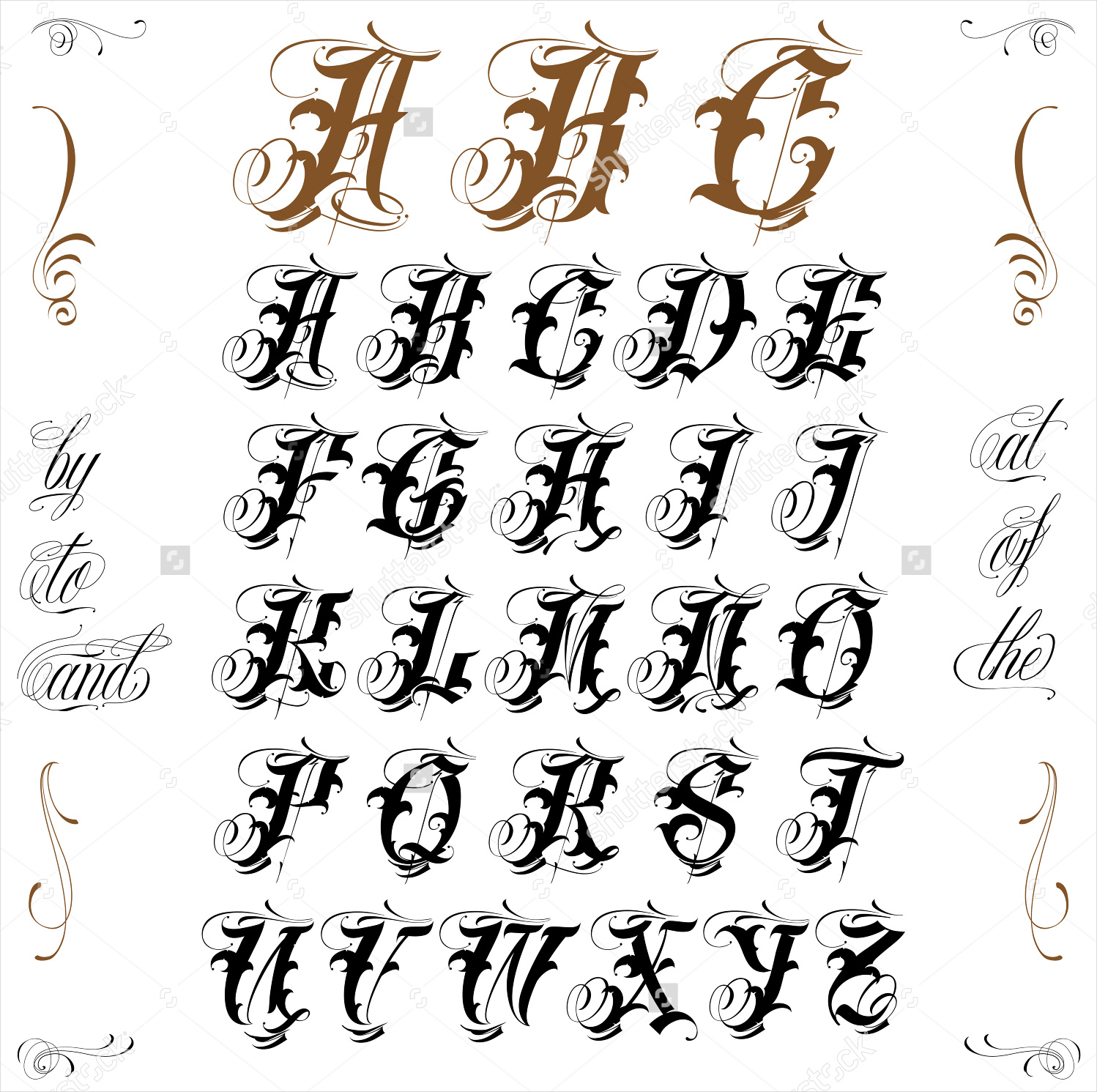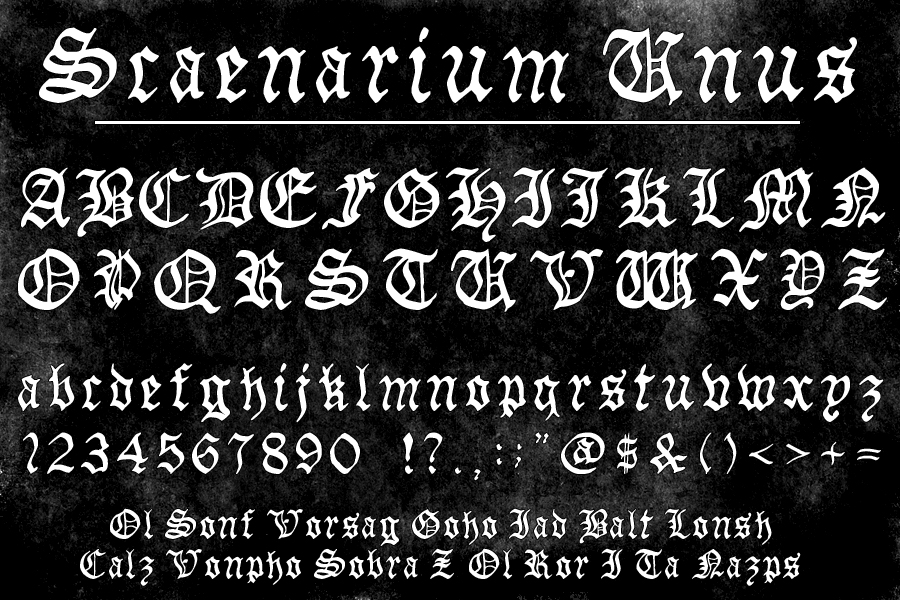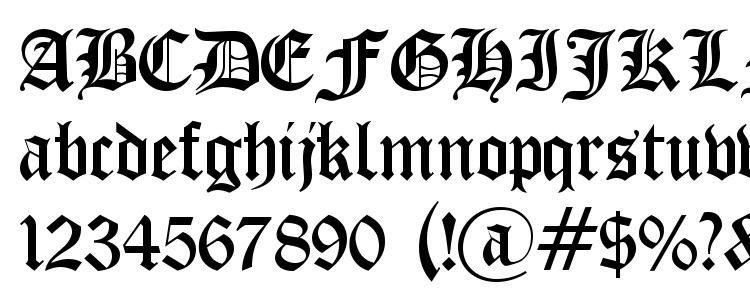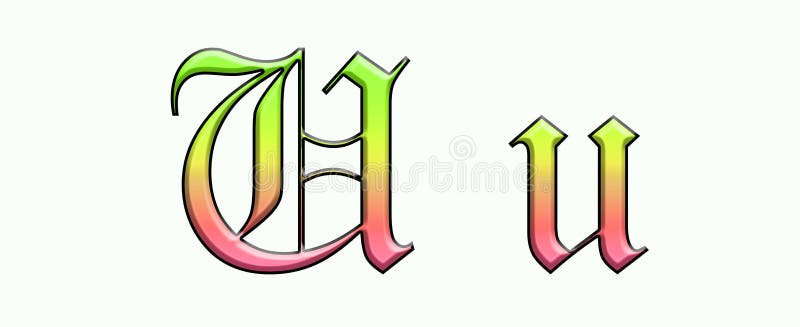
Download more than 10000 free fonts hassle free desktop and mobile optimized around for more than 20 years. The Old English script makes your designs look like they are from the Middle Ages.
The writing is readable but is usually extravagant and embellished with flourishes. Calligraphy is an ancient writing technique using flat edged pens to create artistic lettering using thick and thin lines depending on the direction of the stroke. Click to find the best 30 free fonts in the Old English Calligraphy style.
It is also known as Blackletter or medieval calligraphy. 3459 search results for old english calligraphy. It usually involves a nibbed pen or brush.
We have 44 free old english fonts to offer for direct downloading 1001 Fonts is your favorite site for free fonts since 2001. The height of calligraphy was reached in the middle age where monks developed the narrow writing style called gothic allowing more words to fit on a single line as paper was expensive at the time. We have 24 free Calligraphy Old-english Fonts to offer for direct downloading 1001 Fonts is your favorite site for free fonts since 2001.
1001 Free Fonts offers the best selection of Old English Fonts for Windows and Macintosh. Gothic became known as Old English in England. Calligraphy is an artistic writing style where the pressure is varied to create thick and thin lines all in a single stroke.